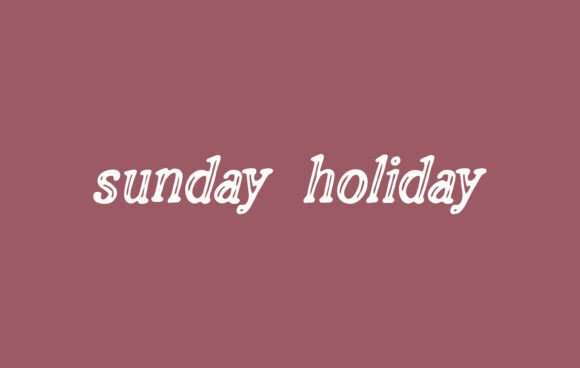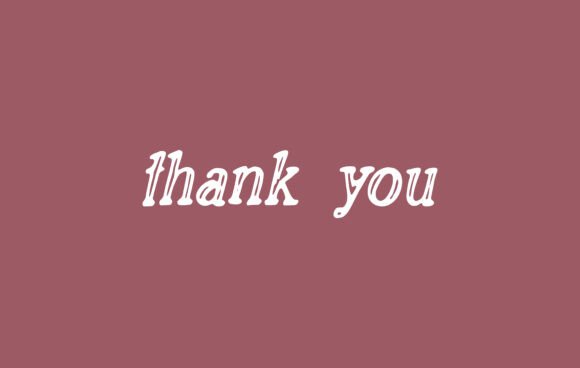
Introduction to Ryker Font
Have you ever stared at a blank page, trying to conjure up the perfect font to bring your creative idea to life? I know I have. The struggle is real, especially when you’re working on a high-stakes project and every detail matters. But what if I told you that there’s a font that could change everything? Enter the Ryker Font, a stunning handwritten font that’s about to become your new best friend.
As a designer, you’re always on the lookout for high-quality design resources that can elevate your creative project and make it stand out from the crowd. The Ryker Font is a valuable addition to any design arsenal, offering a transparent background and a free download option that’s hard to resist. Whether you’re working on a magazine headline, a social media campaign, or a wedding invitation, this font is sure to impress.
Key Features of Ryker Font
- Unique, modern design with a transparent background, perfect for backgrounds and overlays.
Honest Review: Ryker Font
I recently stumbled upon the Ryker Font while searching for a design resource for a creative project. I must say, I was quite impressed with the overall quality of the font.
One of the things that stood out to me was the availability of a high-quality transparent background, which made it easy to work with. The font itself is clean and modern, making it perfect for a variety of design applications.
Here are some of the things that work well with the Ryker Font:
- ✨ Clean and modern design
- ✨ High-quality transparent background
- ✨ Suitable for a variety of design applications
- ⚠️ Limited character set (only includes uppercase and lowercase letters, with a few punctuation marks)
- ⚠️ Not suitable for complex design projects that require extensive font customization
Overall, I was pleasantly surprised by the Ryker Font. While it may not be the most comprehensive font, it’s a great resource for designers looking for a clean and modern font for their creative projects. And the best part? It’s completely free to download.
Ryker Font is ideal for creative projects, including logos, business cards, and marketing materials. To get the most out of Ryker Font, use it in combination with other design elements, such as images and graphics. The free download of Ryker Font makes it an excellent choice for designers on a budget. The high-quality design resource is perfect for designers who require precise typography.